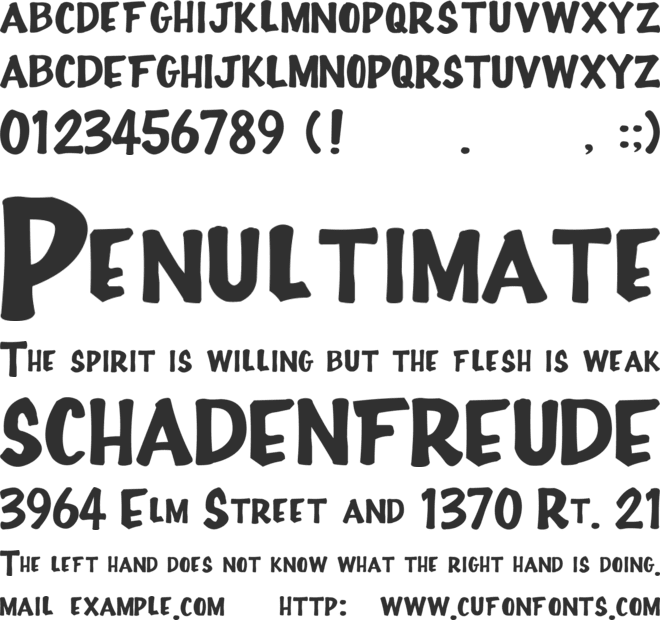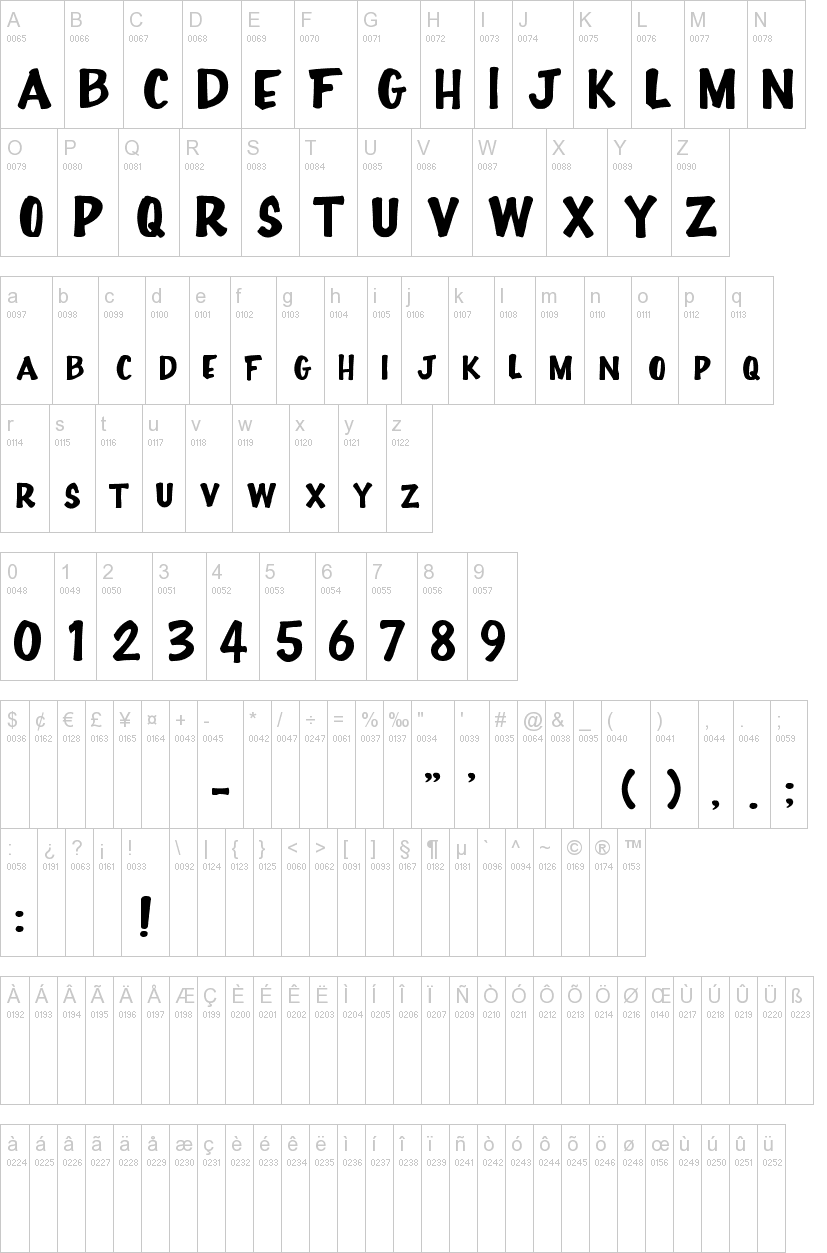
Full House Font
Full House Font - “full house” is an american television sitcom that aired from. Web full house by john manjiro is a font based on the title logo from the tv show full house. The font is available in uppercase, lowercase letters, numerals and limited punctuation marks. Use our free full house font generator tool below to create your own custom design logo or image. It is a free font. Enter your text, select a font, choose a font size, and pick your favorite colors. Web john manjiro from japan created a font based on the title of the tv show. Web full house font generator. Web full house by john manjiro. You can download the font for free here.
Use our free full house font generator tool below to create your own custom design logo or image. Web full house by john manjiro is a font based on the title logo from the tv show full house. Web full house by john manjiro. In fancy > comic 267,561 downloads (13 yesterday) 2 comments 2 font files. “full house” is an american television sitcom that aired from. Enter your text, select a font, choose a font size, and pick your favorite colors. The font is available in uppercase, lowercase letters, numerals and limited punctuation marks. Web full house font generator. Web john manjiro from japan created a font based on the title of the tv show. You can download the font for free here.
The font is available in uppercase, lowercase letters, numerals and limited punctuation marks. Web full house font generator. “full house” is an american television sitcom that aired from. Web full house by john manjiro is a font based on the title logo from the tv show full house. It is a free font. Web john manjiro from japan created a font based on the title of the tv show. Enter your text, select a font, choose a font size, and pick your favorite colors. Web full house by john manjiro. You can download the font for free here. Use our free full house font generator tool below to create your own custom design logo or image.
It is a free font. The font is available in uppercase, lowercase letters, numerals and limited punctuation marks. Web full house by john manjiro. Web full house by john manjiro is a font based on the title logo from the tv show full house. Enter your text, select a font, choose a font size, and pick your favorite colors.
Enter your text, select a font, choose a font size, and pick your favorite colors. Use our free full house font generator tool below to create your own custom design logo or image. The font is available in uppercase, lowercase letters, numerals and limited punctuation marks. It is a free font. Web full house by john manjiro.
It is a free font. Web full house by john manjiro. Enter your text, select a font, choose a font size, and pick your favorite colors. Web full house by john manjiro is a font based on the title logo from the tv show full house. Use our free full house font generator tool below to create your own custom.
In fancy > comic 267,561 downloads (13 yesterday) 2 comments 2 font files. The font is available in uppercase, lowercase letters, numerals and limited punctuation marks. Enter your text, select a font, choose a font size, and pick your favorite colors. Web full house by john manjiro is a font based on the title logo from the tv show full.
Use our free full house font generator tool below to create your own custom design logo or image. The font is available in uppercase, lowercase letters, numerals and limited punctuation marks. Web full house by john manjiro is a font based on the title logo from the tv show full house. Web full house by john manjiro. “full house” is.
It is a free font. The font is available in uppercase, lowercase letters, numerals and limited punctuation marks. Web full house by john manjiro. Enter your text, select a font, choose a font size, and pick your favorite colors. Web full house by john manjiro is a font based on the title logo from the tv show full house.
Web john manjiro from japan created a font based on the title of the tv show. Web full house by john manjiro is a font based on the title logo from the tv show full house. Enter your text, select a font, choose a font size, and pick your favorite colors. Web full house font generator.